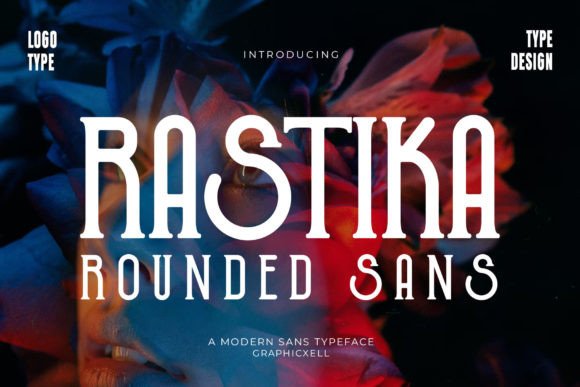
Journey into the world of Rastika, a captivating sans serif font family that breathes modern elegance into your digital creations. With its playful and approachable demeanor, Rastika adds a touch of charm to every project it graces. Whether crafting captivating logos, eye-catching posters, or inviting social media posts, Rastika's versatile nature shines through. Dive into the world of Rastika font and unlock the boundless possibilities of visual expression.
Step into the spotlight with Rastika, a font that exudes sophistication and style. Its meticulously crafted curves and polished lines lend a luxurious touch to any design, making it the perfect choice for branding, advertising, and web design. Experience the allure of Rastika and let your creativity flourish.
With Rastika, the possibilities are endless. Its inherent versatility allows it to effortlessly adapt to a multitude of design aesthetics, from playful and whimsical to sleek and sophisticated. Unleash your imagination and watch as Rastika transforms your designs into captivating masterpieces.
Rastika - The Heartbeat of Family Reunions:
Embrace the warmth and togetherness of family reunions with Rastika, a font designed to capture the essence of these cherished gatherings. Its friendly and inviting curves evoke the joyful laughter and heartfelt conversations that make family reunions so special. Let Rastika be the storyteller, weaving your family's unique narrative through invitations, programs, and keepsakes.
Relive the Magic, Cherish the Moments:
Rastika holds the power to transport you back to those unforgettable family moments. Its playful nature captures the essence of childhood games and laughter, while its elegant lines evoke the warmth of family dinners and heartfelt conversations. Let Rastika be the guardian of your precious memories, preserving them in a timeless and beautiful form.